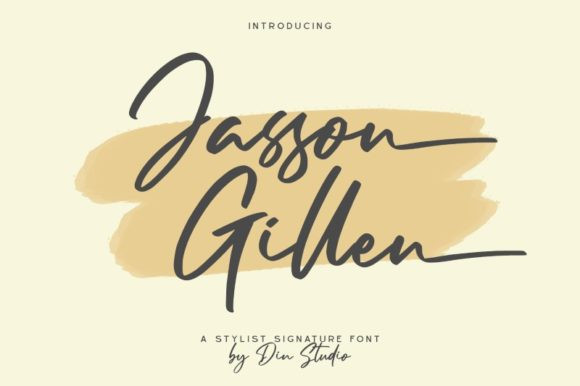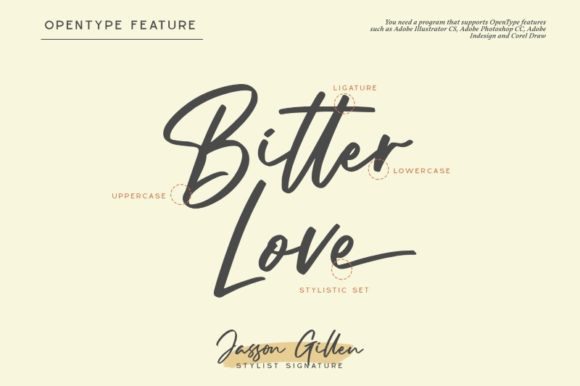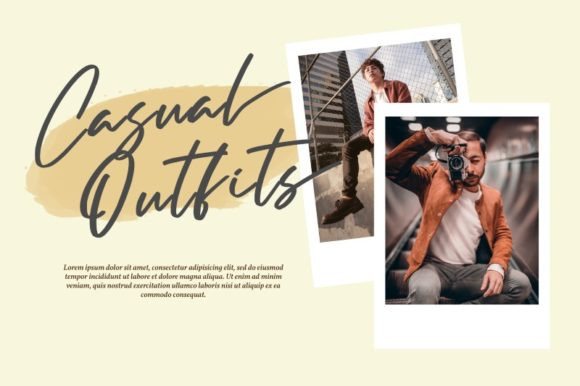
Jasson Gillen Font
Jasson Gillen is a flowing and timeless handwritten font. Fall in love with its incredibly versatile style and use it to create gorgeous wedding invitations, beautiful stationary art, eye-catching social media posts, and much more!